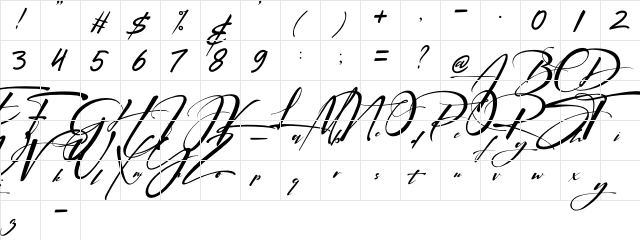
Signatrue Regular
| Designer | Lettersiro 2018 |
Design Context for Signatrue Typeface
Signatrue is a composed and adaptable typeface that performs quietly and consistently across a wide range of design contexts.